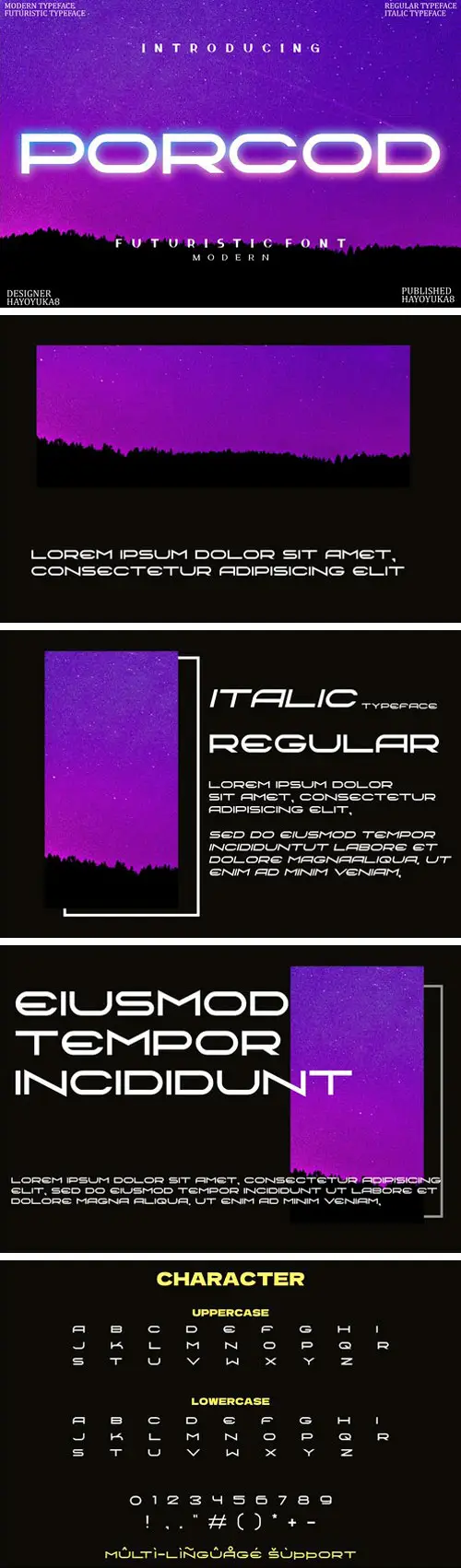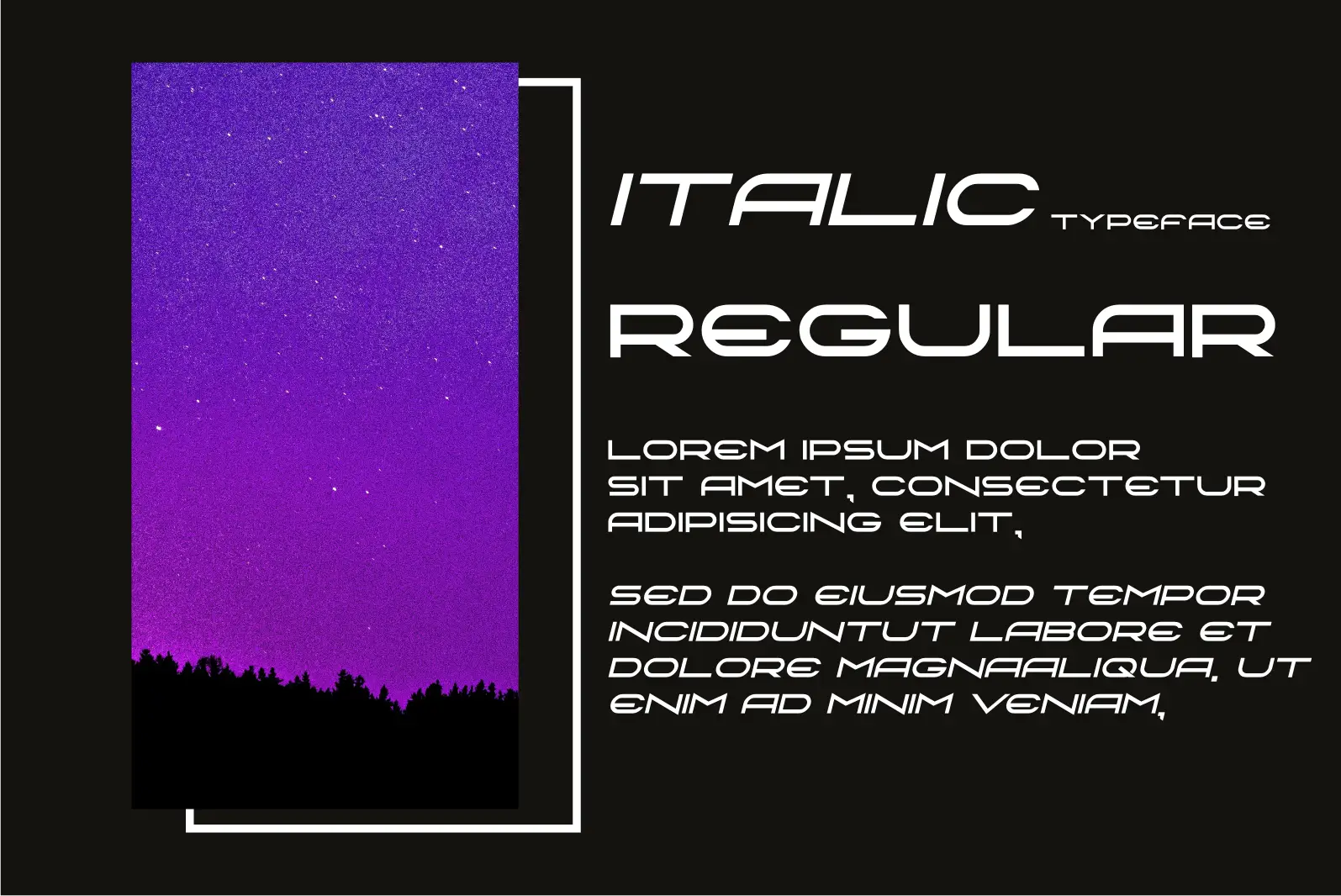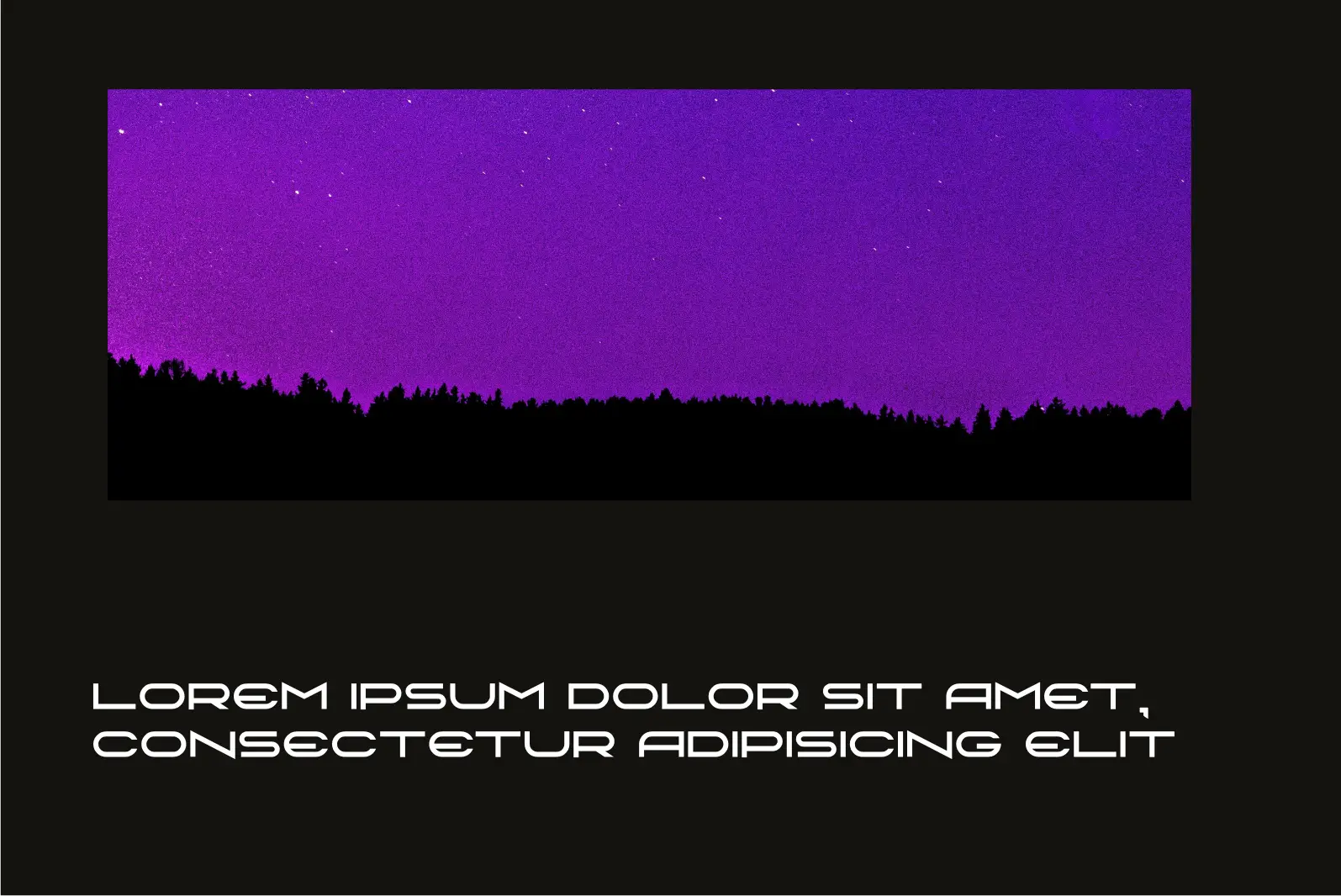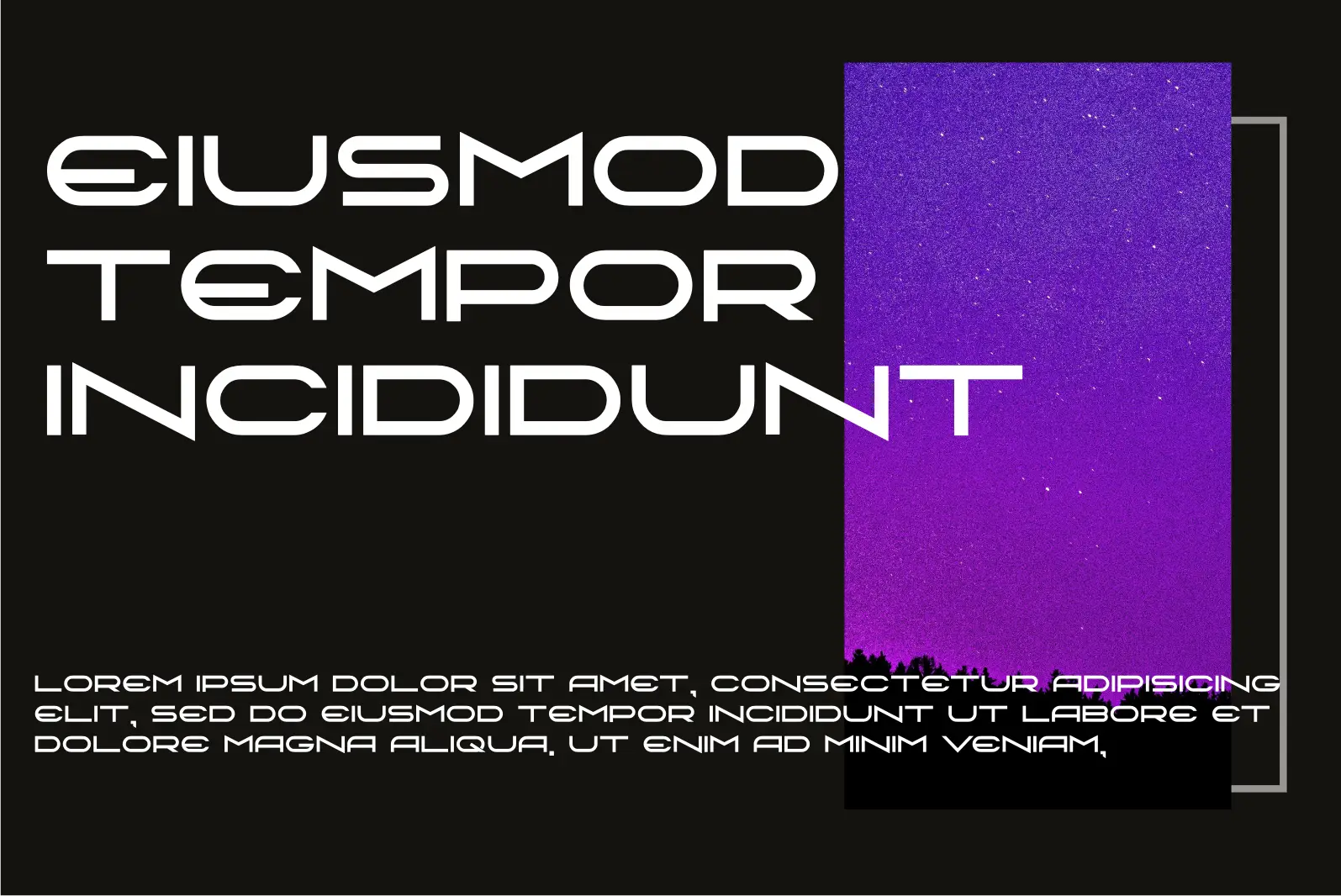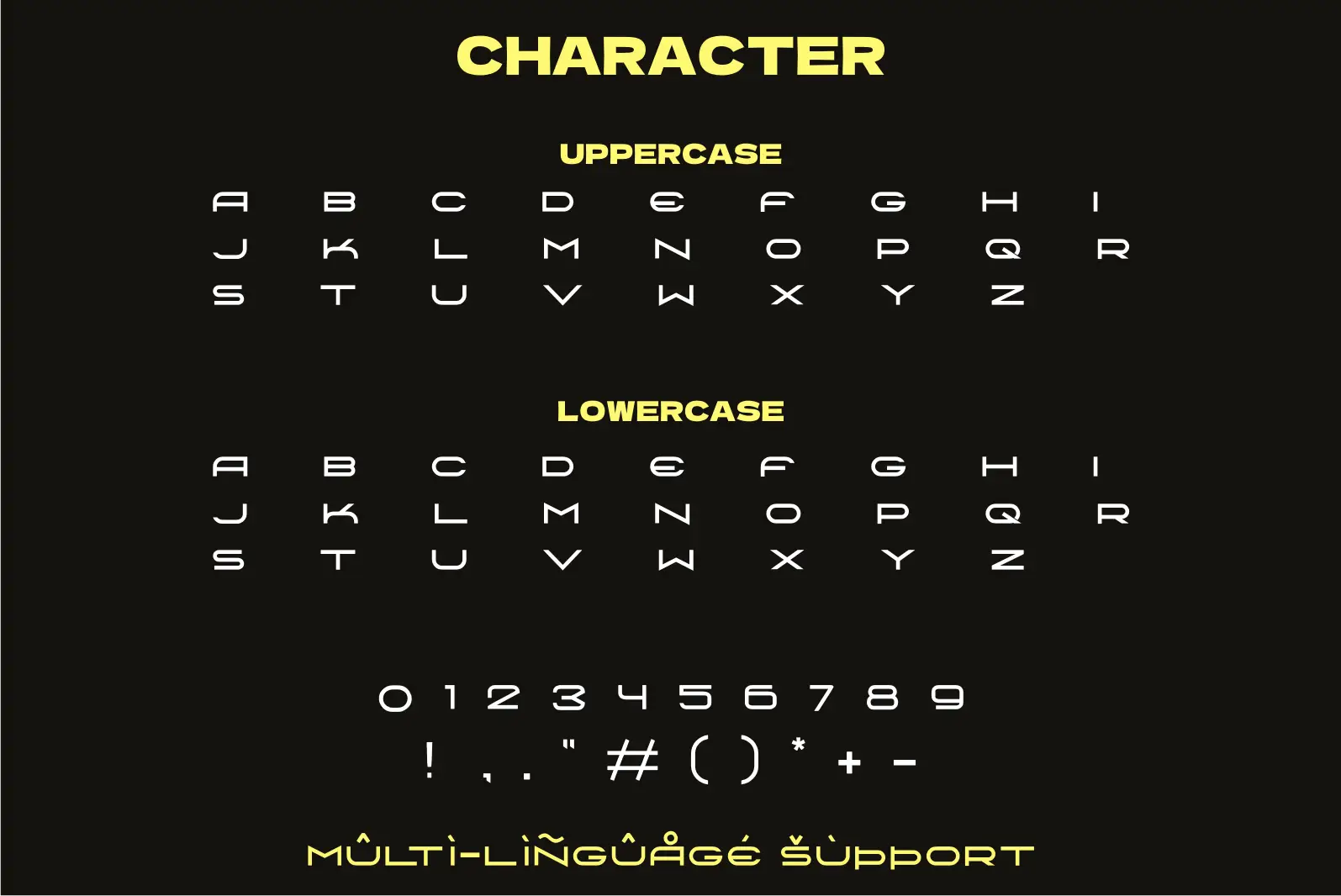
Porcod Display Font
The Porcod Display Font is a striking typeface designed for eye-catching headlines and branding projects. With its unique character shapes and bold presence, this font stands out in both digital and print formats.
• Styles: Display
• Ideal for branding, logos, and promotional materials.
• Perfect for web design and user interfaces where a bold statement is needed.
• Use in print materials such as posters, flyers, and business cards to grab attention.